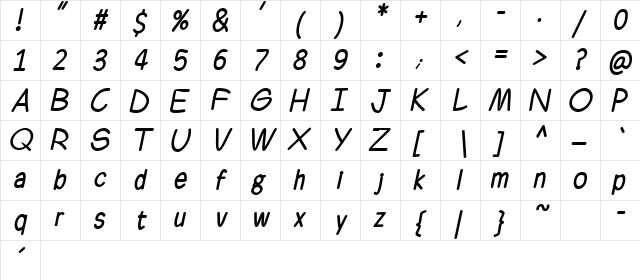
Ferrero Rocker Italic
Design Context for Ferrero Rocker Typeface
Ferrero Rocker is a composed and adaptable typeface that performs quietly and consistently across a wide range of design contexts. Its italic angle brings a sense of urgency and motion to the letterforms.
Pro Tip: Use Ferrero Rocker for emphasis, pull quotes, and subheadings where its slanted energy can add rhythm to the layout.